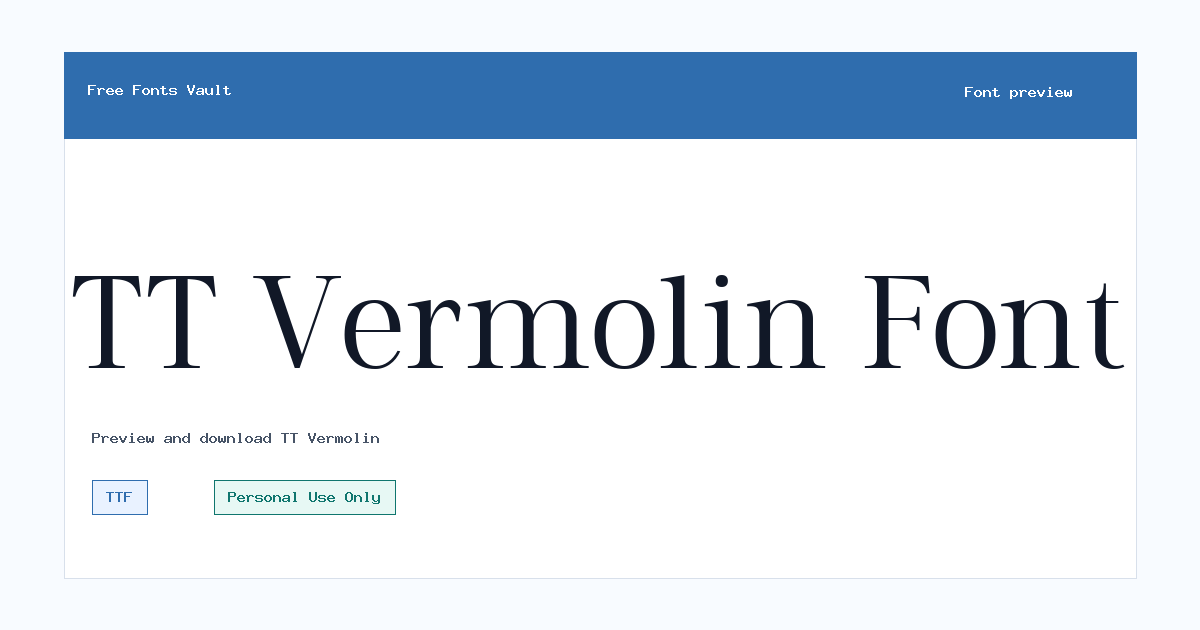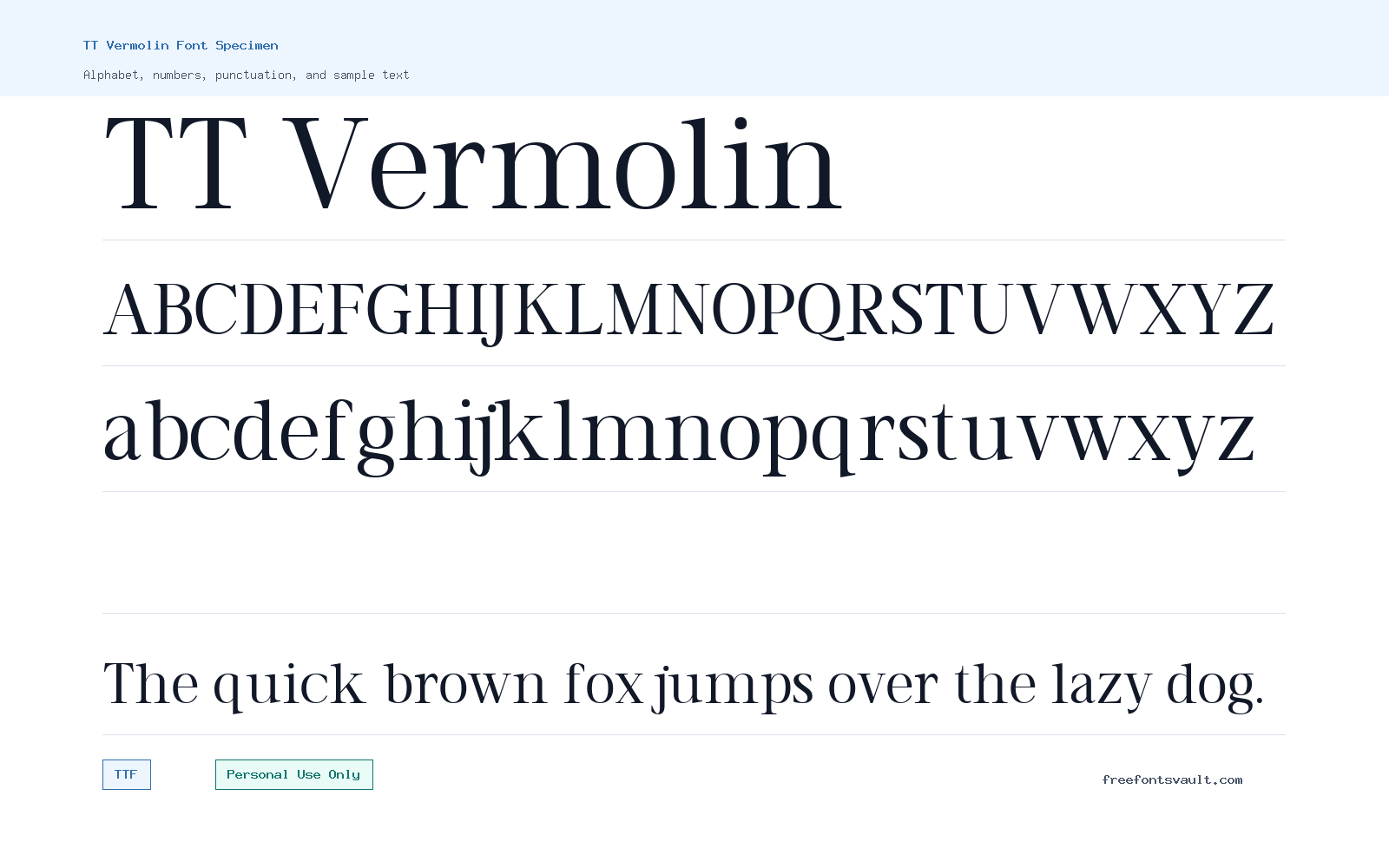
TT Vermolin
- Designer Bobymocha
TT Vermolin is a personal-use serif demo font family with TrueType files across several weights, giving you enough range to test elegant headings, short display text, and styled layouts before deciding whether it fits your project.
TT Vermolin works best when you treat it as a display serif rather than a long-reading text face. The family has demo TTF files for Thin, ExtraLight, Light, Regular, Medium, SemiBold, and Bold, so you can compare a delicate look against heavier title settings in the preview tool. The lighter weights are useful for spacious, refined words, while the stronger weights give headlines more presence. Since the download files are marked as demo fonts, the safest approach is to preview first, test the characters you need, and confirm the license before using it beyond personal work.
Use TT Vermolin for short text where the shape of the letters can stand out: titles, nameplates, quote graphics, editorial-style headers, invitation mockups, or brand concept drafts. Avoid relying on it for dense paragraphs until you test size, spacing, punctuation, and legibility on your own screen or print setup. Serif display fonts can look polished in large sizes but may lose clarity when reduced, especially in thin weights. Pair it with a quiet sans serif or a simple text serif so TT Vermolin can carry the visual focus without making the whole design feel busy.
- Serif demo font family with multiple TTF weights from Thin to Bold.
- Editorial-style headlines, invitations, quote graphics, and elegant short titles.
Does TT Vermolin include multiple weights?
Yes. The demo files include Thin, ExtraLight, Light, Regular, Medium, SemiBold, and Bold styles.
What is TT Vermolin best used for?
It is best suited to short display text such as headings, invitations, quote graphics, editorial titles, and personal mockups.
Should I use TT Vermolin for body text?
Test it carefully first. It is more practical for short, larger text; thin serif styles can become harder to read in small paragraphs.